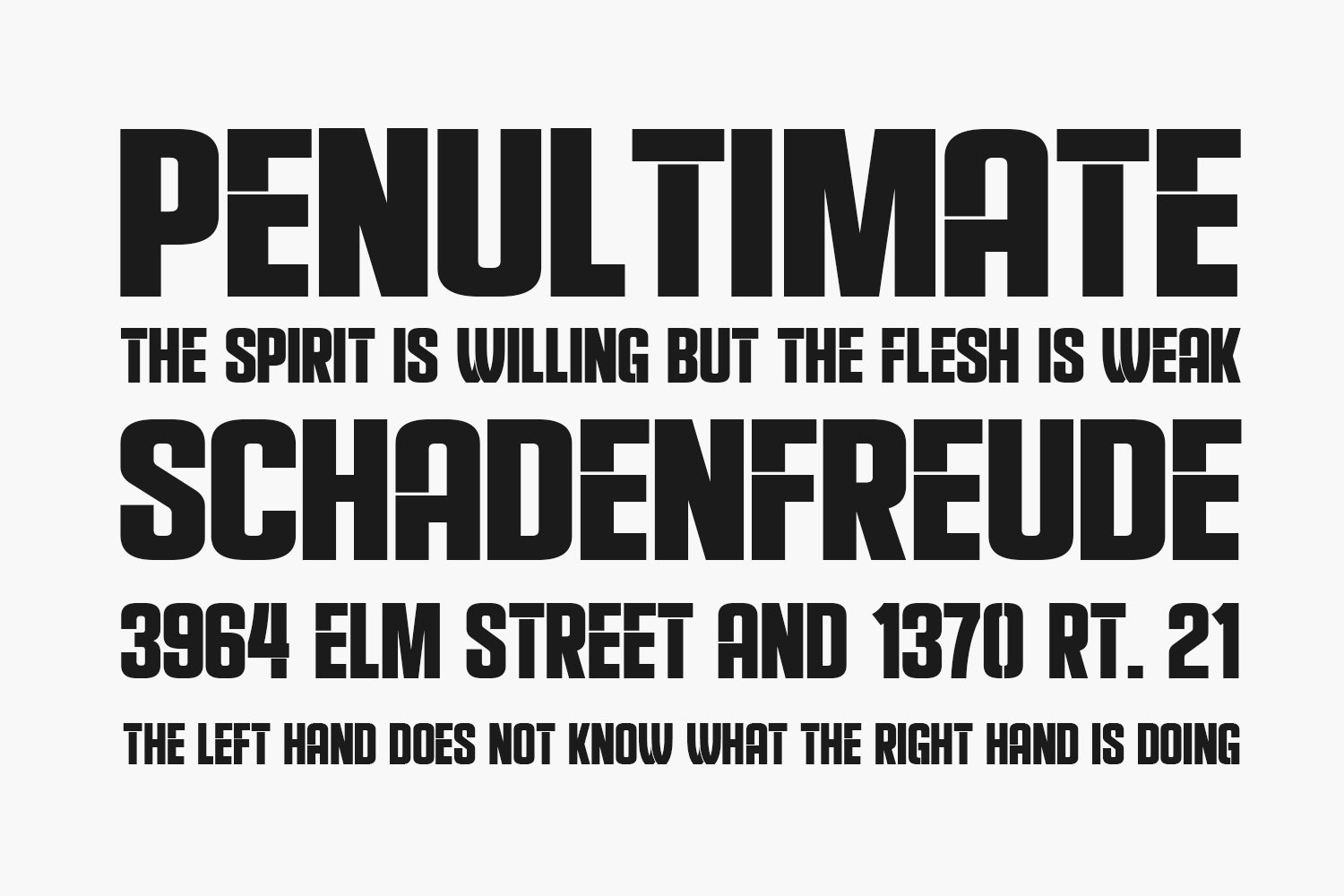
Educated Deers Free Font is a unique & bold display font. It will work great for titles & headers on any design project. Educated Deers Free Font was designed by Vladimir Nikolic and is free for personal use only. Please purchase the full version for commercial use.
Designed by Vladimir Nikolic